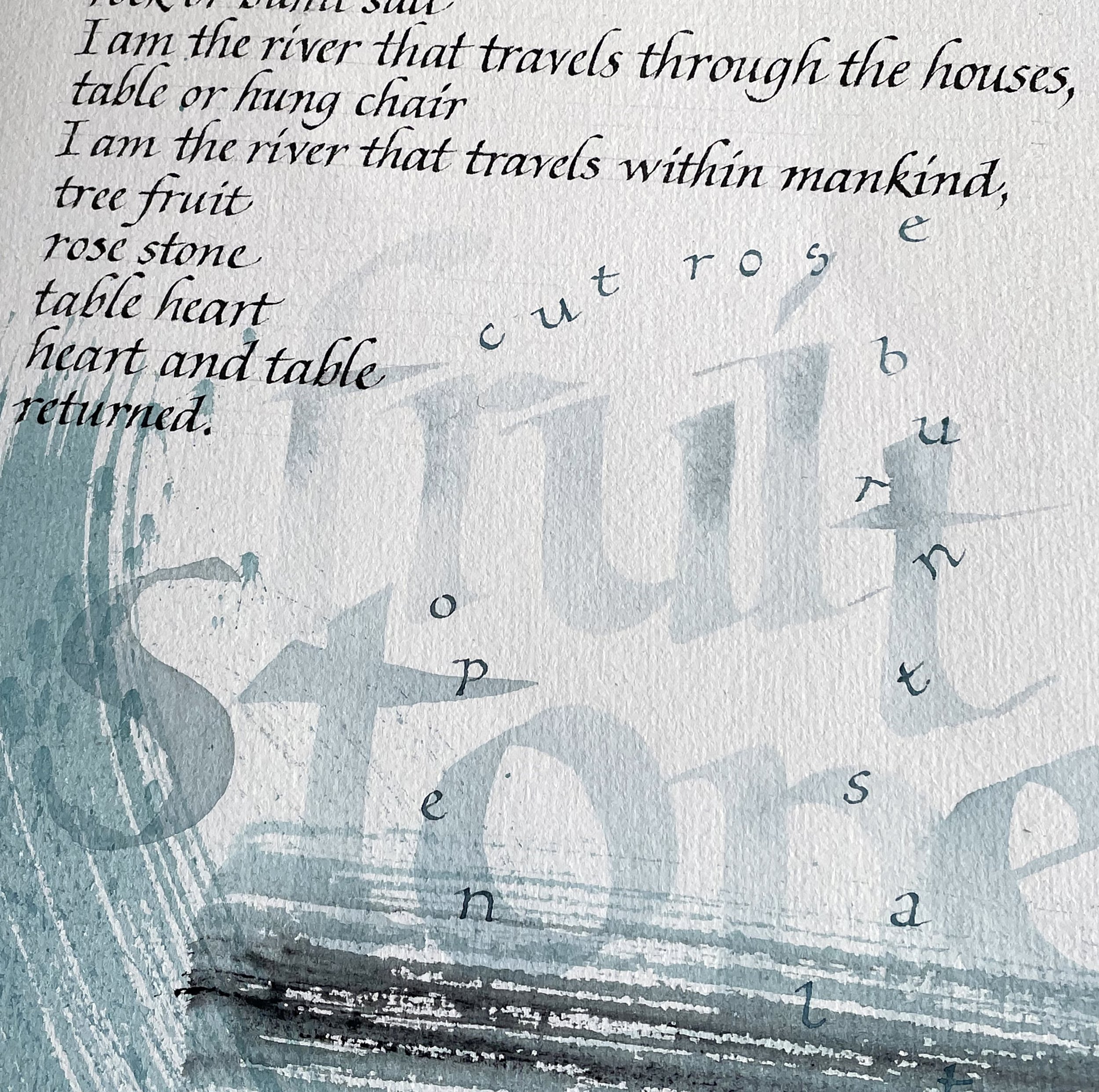
JUAN LUIS GARGUREVICH | The river (English)
ARTIST | Juan Luis Gargurevich
BASED IN | Lima, Peru
TITLE | The river
SIZE | 215 × 395 mm (closed)
MEDIUM | Acrylic and sumi ink
An accordion-fold artist book featuring eleven faces, including a hard cover wrapped in raw fabric and closed with a ribbon tie. The main text is written in English in an Italic hand, complemented by colour accents and bold brush-formed letters that bring expressive rhythm to the design.